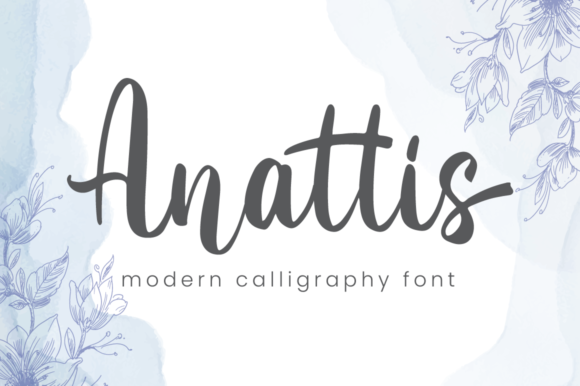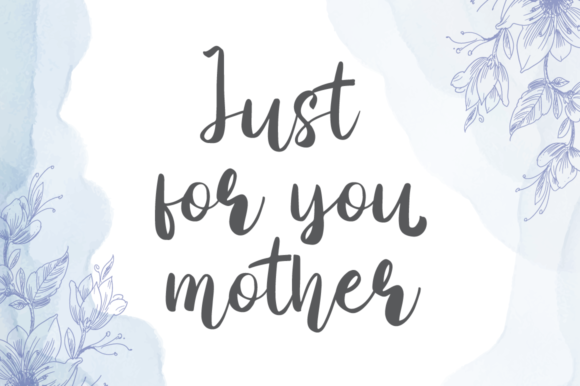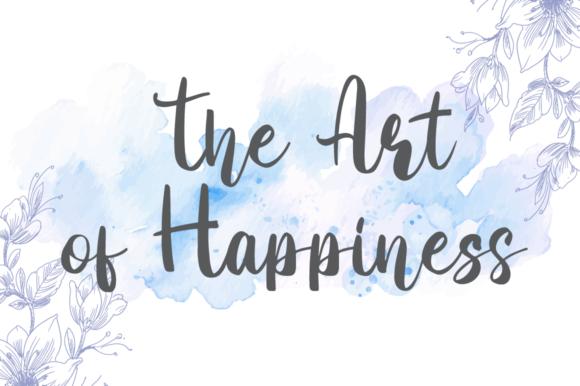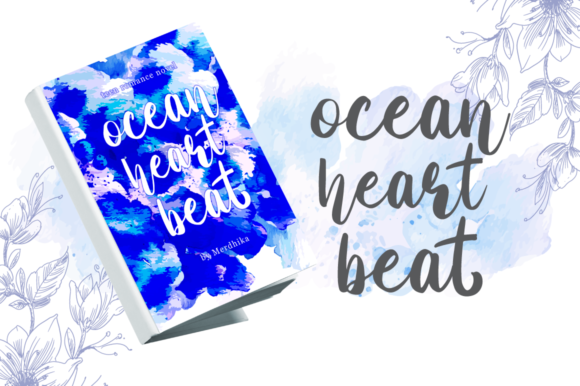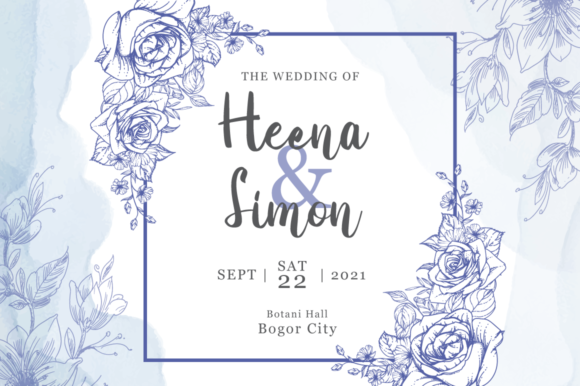
About Anattis Font
“Anattis” emerges as a gracefully flowing handwritten font, defined by an elegant touch that makes it an impeccable choice for your cherished projects. This font encapsulates an air of sophistication that remains both distinct and timeless, inviting you to immerse yourself in its allure and utilize it to craft designs that truly captivate.
What sets “Anattis” apart is its seamless blend of fluidity and elegance. Each meticulously designed letter carries an aura of refined beauty, reminiscent of calligraphy penned with meticulous care. With every stroke, “Anattis” weaves a narrative of elegance and timelessness that transcends the ordinary.
Envision the transformative power of “Anattis” across a range of designs—an ethereal wedding invitation graced by the font’s elegant script, setting the tone for a romantic celebration. Picture the font enhancing a luxury brand’s logo, encapsulating the essence of both opulence and understated grace in every character. This font’s versatility extends gracefully across diverse contexts, infusing projects with an element of enduring sophistication.
The natural charisma of “Anattis” is magnetic, akin to a graceful dance that sweeps across the page. Its letters flow with a gentle rhythm, imparting a sense of grandeur that elevates the overall design. The font radiates an aura of timeless charm, inviting creators to embark on a journey of artistic exploration.
Designers and enthusiasts alike are bound to be captivated by the timeless elegance of “Anattis.” Its adaptability transcends norms, making it an indispensable tool for various projects. Beyond being a mere font, “Anattis” evolves into a medium of expression, empowering creators to infuse their work with a dash of timeless sophistication.
In essence, “Anattis” stands as a testament to the artistry that typography can encompass. Its flowing handwritten charm beckons you to explore the world of design, transforming your ideas into tangible creations that embody timeless beauty. As you navigate the realms of creativity, let “Anattis” be your guiding light, leading you to craft designs that reflect the essence of elegance and create a lasting impact on every canvas, all while celebrating the rich magic of your creative imagination.